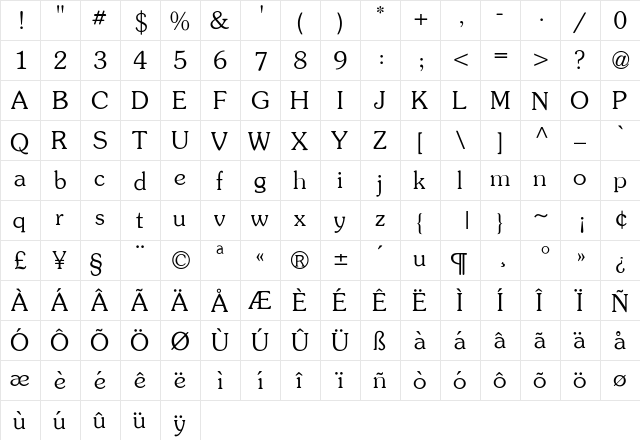
SouviennePlain Regular
Design Context for SouviennePlain Typeface
SouviennePlain takes a measured approach to typography — its balanced proportions and neutral character make it a reliable workhorse for both digital and print work.
Pro Tip: Use SouviennePlain in both headline and body roles to test its range before committing to a single application.